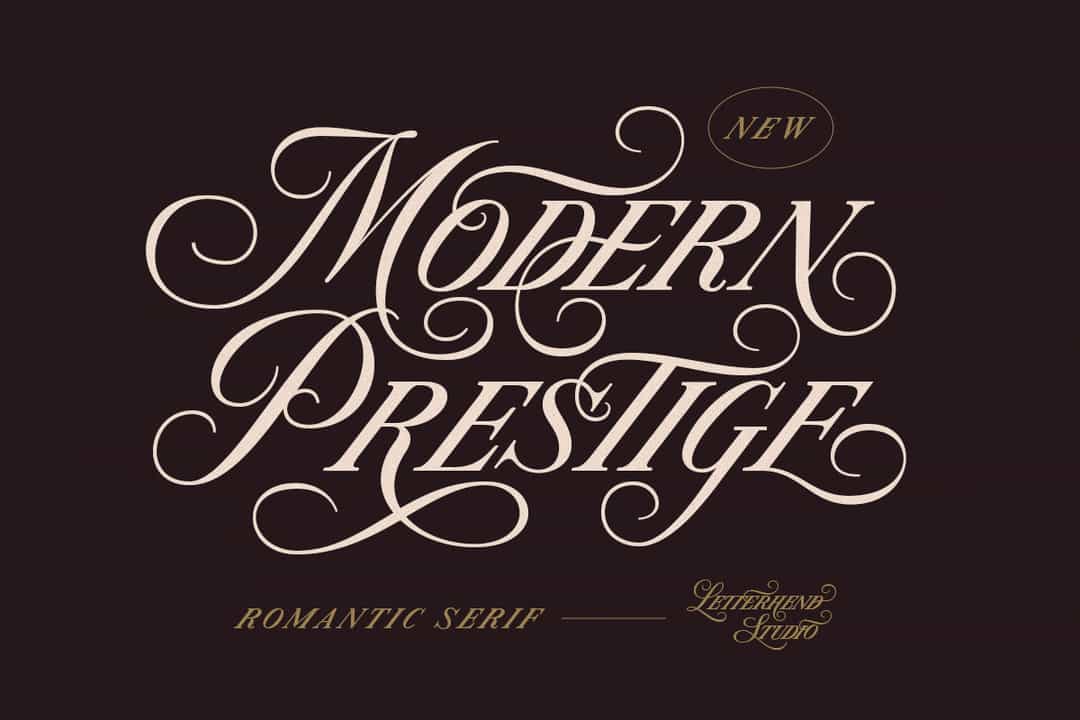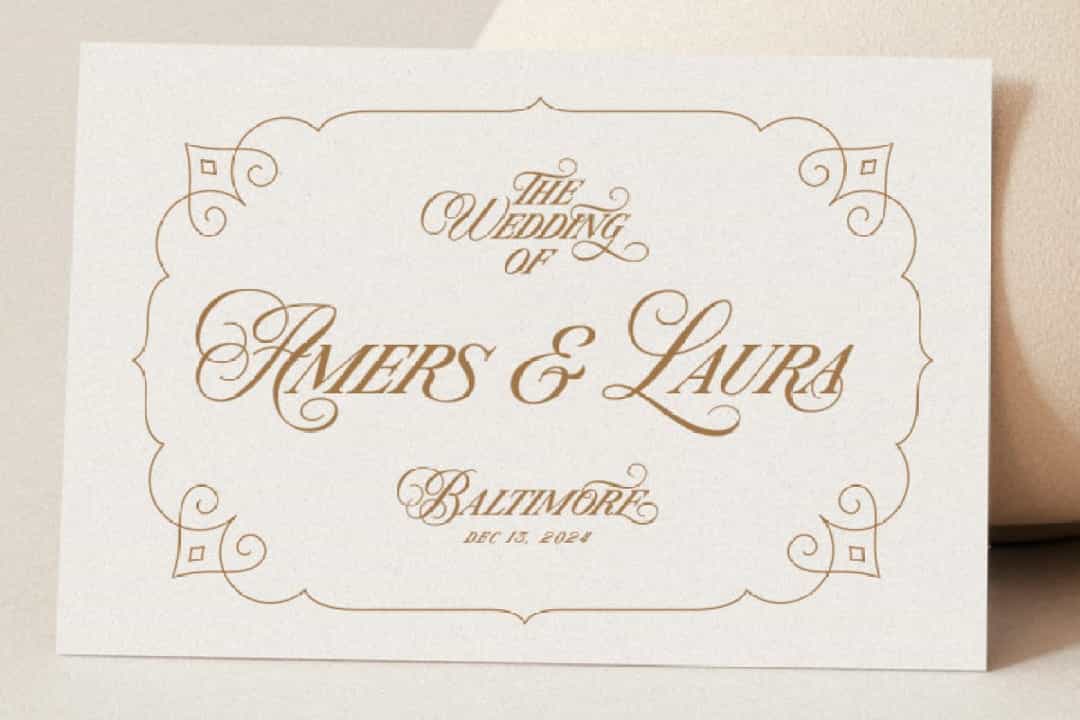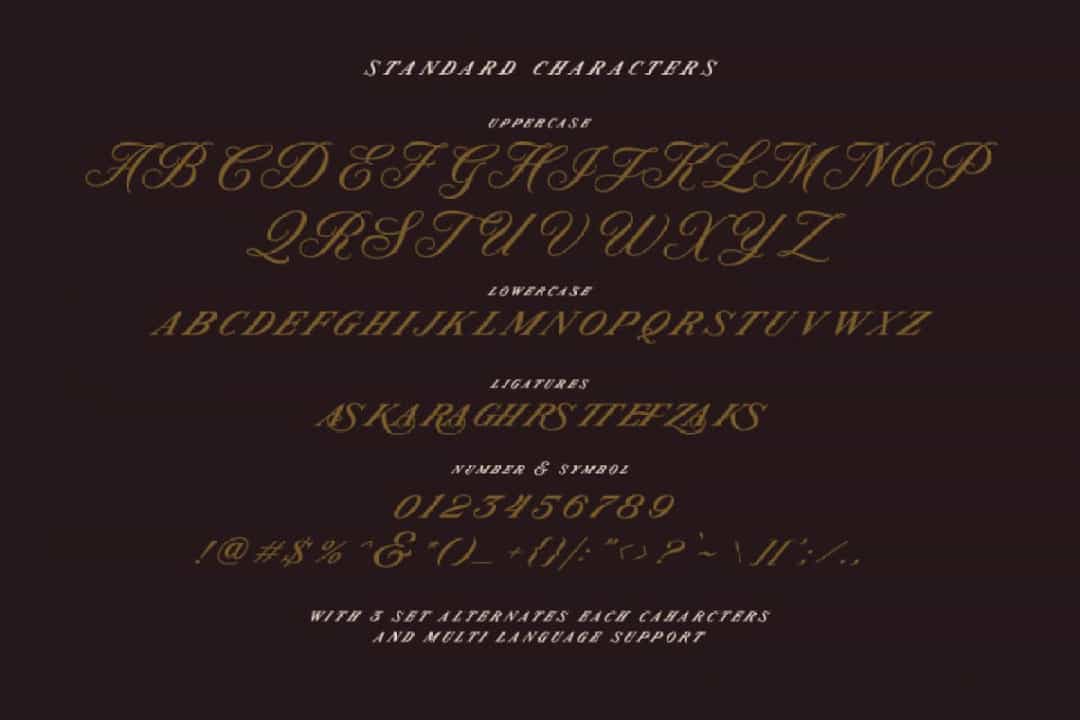
Modern Prestige is an elegant and sophisticated script calligraphy font with an exquisite modern appearance, sleek lines and stylish flair that makes for easy use when designing logos, branding invitations, stationery designs, wedding invitations or social media posts! PUA encoded, it provides easy access to its incredible set of glyphs and ligatures!